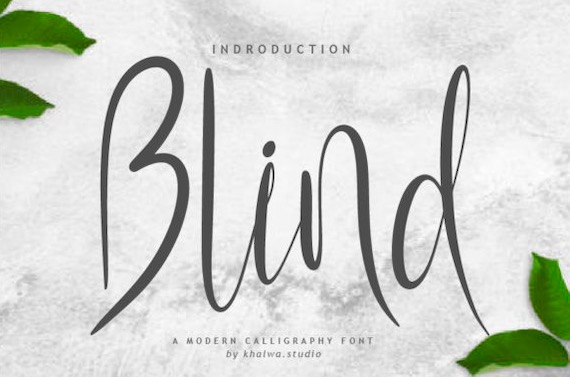
Blind is a great modern Script Font that has an authentic Calligraphy look. It was created and shared by Khalwa Studio. This is a timeless and lovely handwritten font. It is the best choice for creating eye-catching logos, branding, and quotes. Every letter has a unique and beautiful touch, which will make your design come alive.
Blind Calligraphy Script Font
Publisher: Khalwa Studio